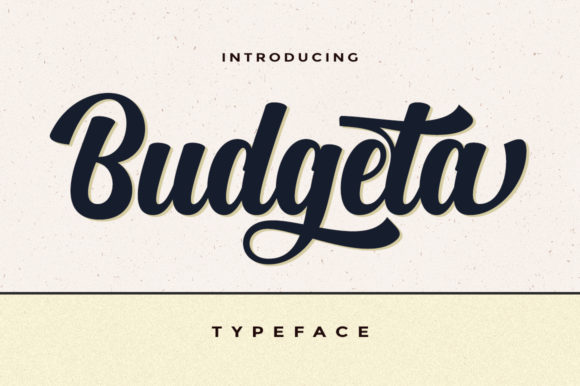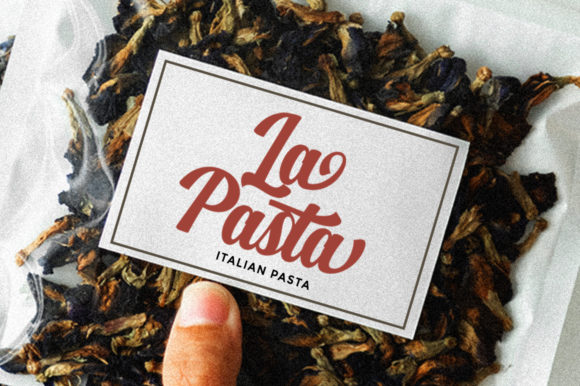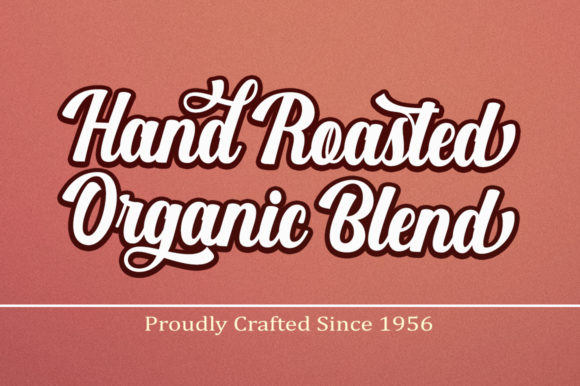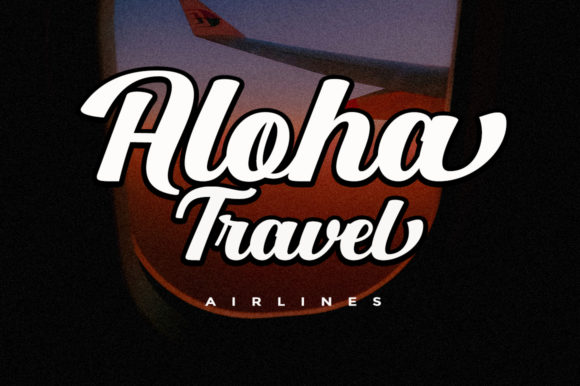
Budgeta Font: Elegant Handwritten Script for Wedding & Logo Design
About the Budgeta Font
We are excited to introduce Budgeta Font, a must-have typeface for any serious designer. Budgeta feels equally charming and elegant. It looks stunning on wedding invitations, thank you cards, quotes, greeting cards, logos, business cards and every other design which needs a handwritten touch.
Budgeta’s elegant charm makes it ideal for branding projects requiring a sophisticated yet approachable feel, particularly logos, stationery, and short-form marketing materials. It excels in headlines, short quotes, and headings where its handwritten style adds visual interest. However, its varying baseline and decorative elements make it less suitable for body text or UI elements where readability is paramount. Avoid using it in long paragraphs or for website content.
Pairing Budgeta effectively depends on the desired balance. For a classic feel, consider pairing it with a clean serif like Garamond or a geometric sans-serif like Futura. To enhance its playful side, a script font like Allura or a rounded sans-serif like Lato would work well.
Its core personality is sophisticated and friendly, conveying both elegance and approachability. This makes it a versatile choice for brands aiming for a balance between refined aesthetics and warm connection with their audience.